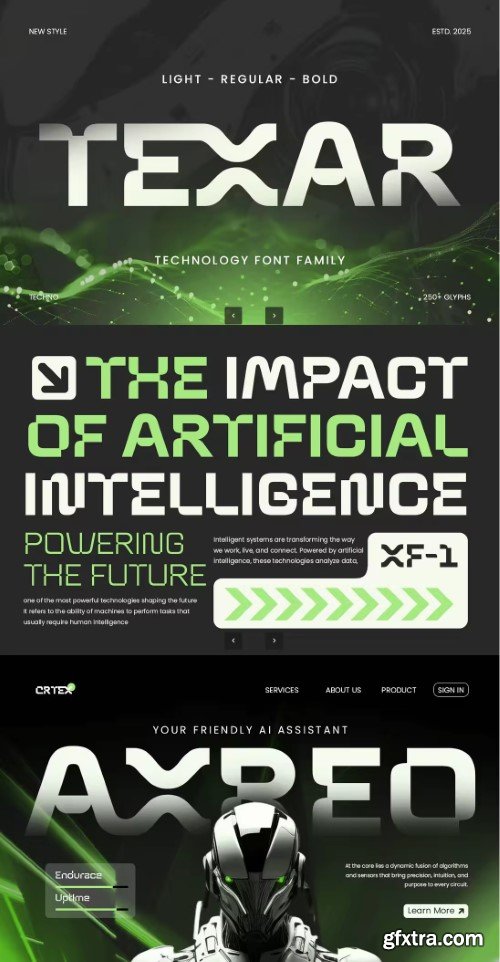
Texar - Technology Font Family
- TEXAR is a technology font family designed to meet the needs of modern digital design. With its clean lines, geometric precision, and high-tech appeal, TEXAR offers a versatile type system that is perfect for everything from tech branding to UI/UX interfaces. This font family includes a variety of weights and styles, allowing you to create a consistent visual language across different digital and print platforms. Whether you're designing a cutting-edge website, a tech product, or a corporate logo, TEXAR brings clarity, modernity, and innovation to your brand identity.